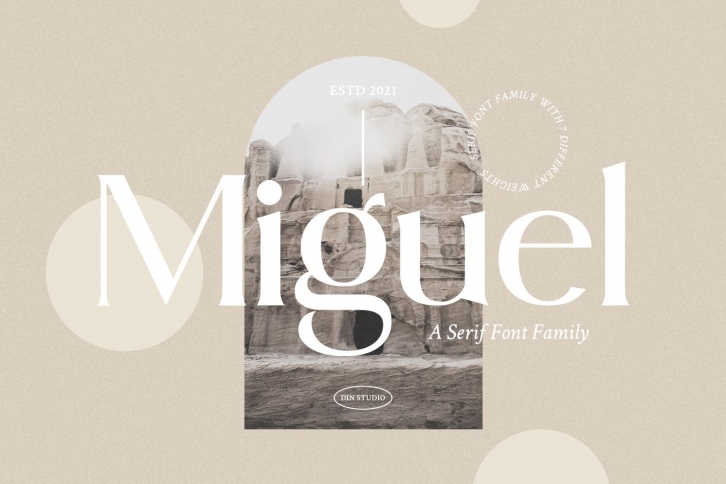
Introducing Miguel - A Serif Font Family
With this package you will get many options to maximize your designs with stylish fonts. Miguel paves the way for you to write the information you need to send out to your audience. Make your projects to works of art, conveying your intentions clearly with the font! This font can be used for a host of different content needs and projects. It is perfect to be used on your website, for your social media branding, Pinterest banners, printed products, and more!
Our font always includes Multilingual Support to make your branding reach a global audience.
Inspire your audience, clients, or guests with this beautiful, statement font.